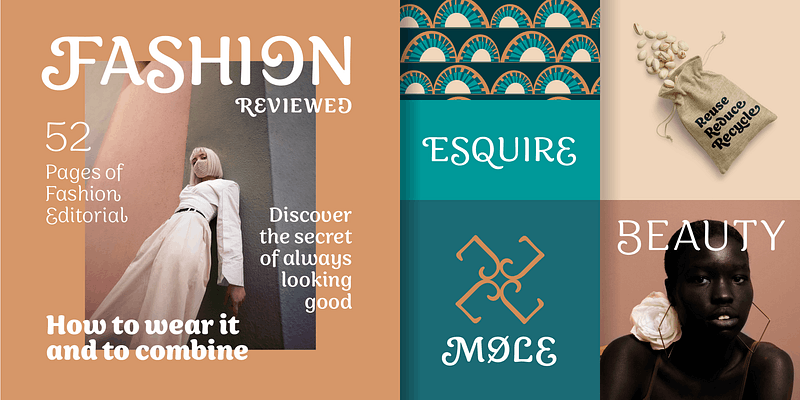
Sirenia Font Free Download is a graceful and whimsical serif typeface inspired by art nouveau elegance and organic forms. With its flowing curves, delicate serifs, and subtle decorative flair, this font is perfect for romantic branding, editorial layouts, book covers, beauty packaging, and any design that calls for an artistic, feminine touch.
Sirenia balances personality with readability, making it suitable for both headlines and short passages of text. It integrates seamlessly with design platforms like Adobe InDesign, Illustrator, Canva, and more, giving designers the freedom to express style and sophistication across digital and print media.